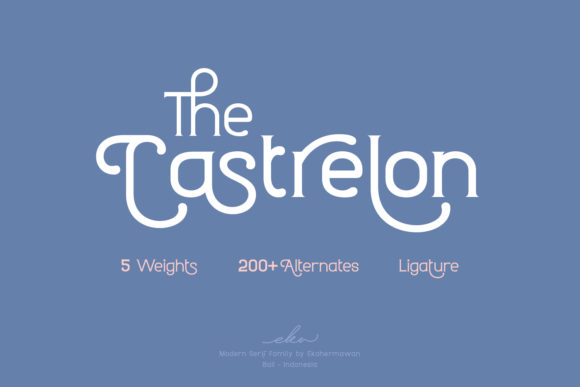
Introducing Castrelon Font: A Cool and Organic Display Font
Are you looking for a font that can add a touch of vintage charm to your design projects? Look no further than Castrelon Font, a cool and organic looking display font that’s perfect for a wide range of design ideas, both formal and informal. In this article, we’ll take a closer look at Castrelon Font, its features, and how you can use it to elevate your designs.
What is Castrelon Font?
Castrelon Font is a display font that’s designed to give your designs a vintage, casual feel. It’s a carefully crafted font that’s inspired by traditional typography, but with a modern twist. The font features a unique blend of classic and contemporary elements, making it perfect for designers who want to add a touch of nostalgia to their work.
Key Features of Castrelon Font
- Vintage styling: Castrelon Font has a distinctly vintage feel, with classic elements that evoke a sense of nostalgia.
- Organic look: The font has an organic, hand-crafted look that’s perfect for designs that need a personal touch.
- Cool and casual: Castrelon Font is designed to be cool and casual, making it perfect for informal designs, such as posters, flyers, and social media graphics.
- Formal and informal use: Despite its casual feel, Castrelon Font is versatile enough to be used in formal designs, such as logos, branding, and advertising.
Design Ideas for Castrelon Font
Castrelon Font is a versatile font that can be used in a wide range of design projects. Here are some ideas to get you started:
- Posters and flyers: Use Castrelon Font to create eye-catching posters and flyers for events, promotions, and products.
- Social media graphics: Add a touch of personality to your social media graphics with Castrelon Font.
- Logos and branding: Use Castrelon Font to create unique and memorable logos and branding for your business or organization.
- Advertising: Castrelon Font is perfect for advertising, whether it’s for print, digital, or outdoor ads.
- Packaging: Use Castrelon Font to add a touch of vintage charm to your product packaging.
Why Choose Castrelon Font?
There are many fonts available that offer a vintage or casual look, but Castrelon Font stands out from the crowd. Here are some reasons why:
- Unique design: Castrelon Font has a unique design that’s both classic and modern.
- High-quality craftsmanship: The font is carefully crafted to ensure that it’s both legible and visually appealing.
- Versatility: Castrelon Font can be used in a wide range of design projects, from formal to informal.
Castrelon Font is a cool and organic looking display font that’s perfect for designers who want to add a touch of vintage charm to their work. With its unique design, high-quality craftsmanship, and versatility, Castrelon Font is a great choice for a wide range of design projects. Whether you’re creating posters, logos, or social media graphics, Castrelon Font is sure to make your designs stand out.